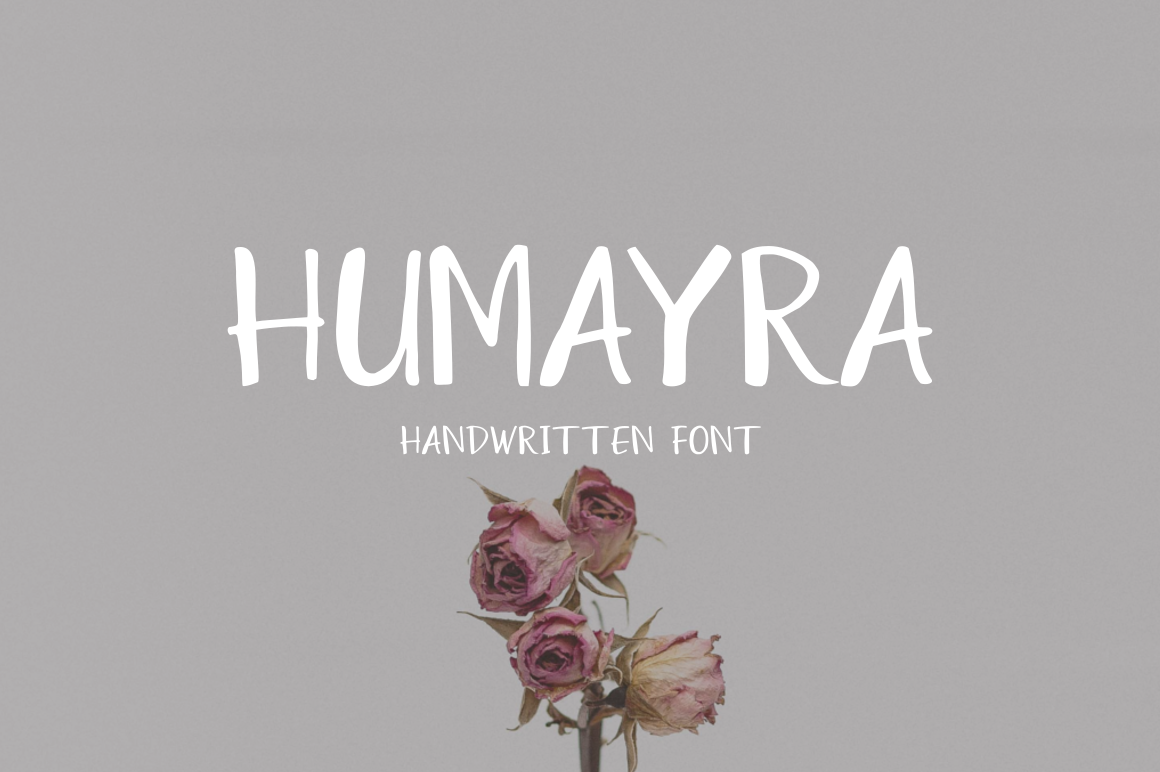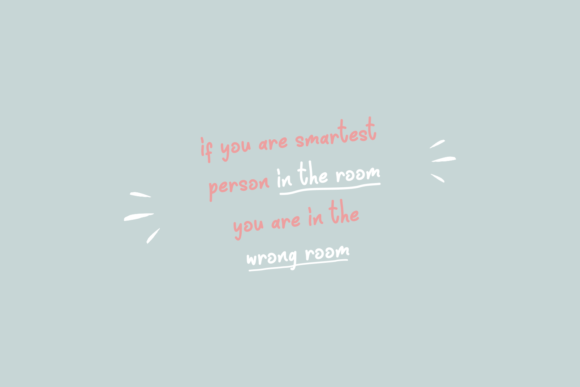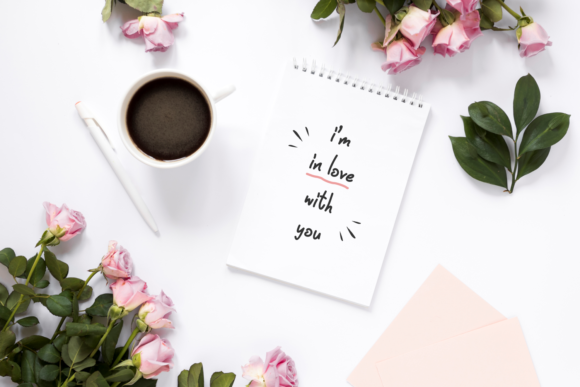
Humayra Script
Humayra Script Font
Humayra is beautiful handmade font. Humayra is perfectly suited to logo, logotype, branding, poster, t-shirt, quotes, instagram post, book cover and more.